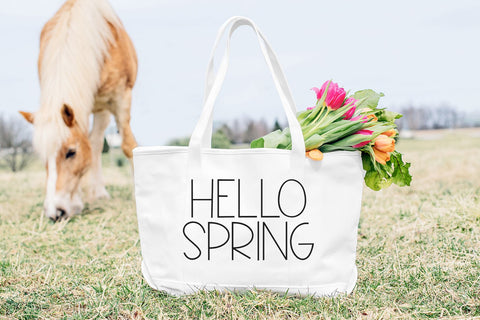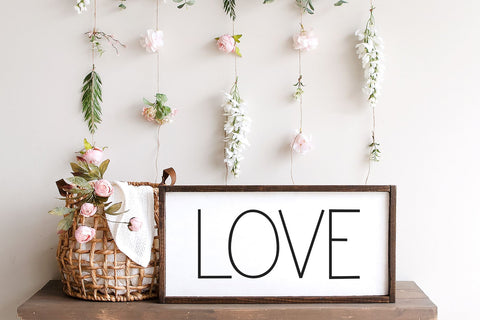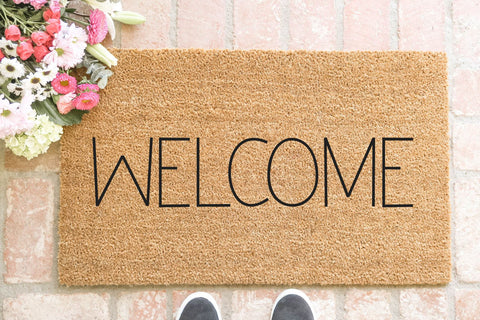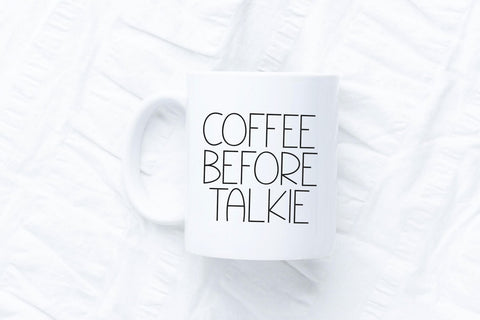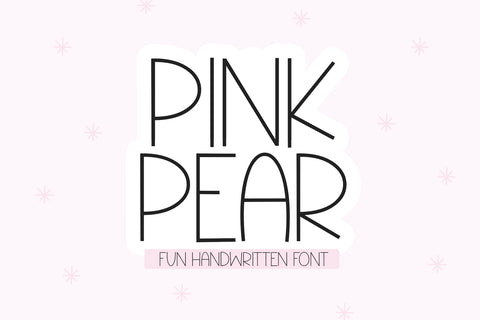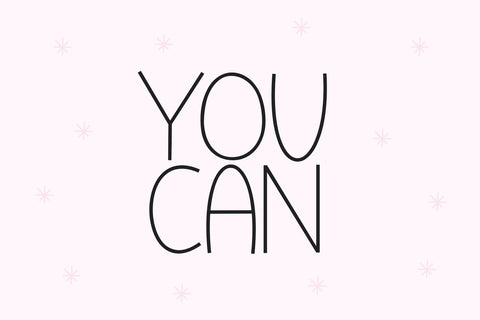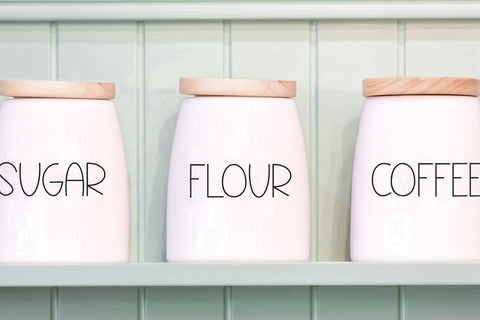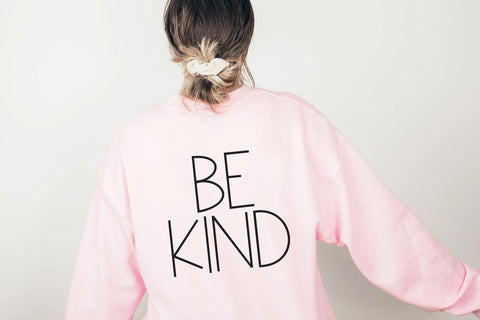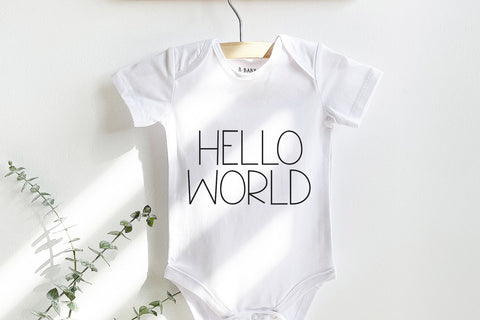
Pink Pear - Fun Handwritten Font
Pink Pear is a handwritten font in a style that is perfect for all of your farmhouse designs!
This font is perfect for creating svg designs, farmhouse signs, shirts, decor, procreate designs, branding, social media and more!